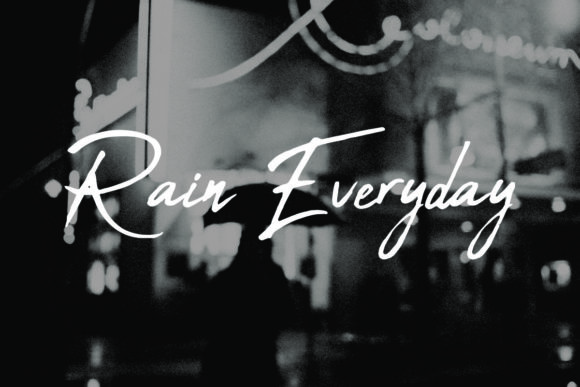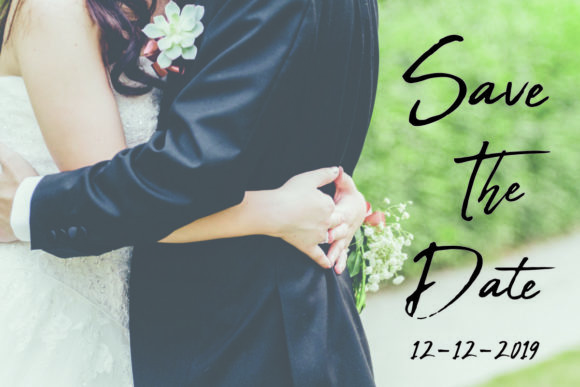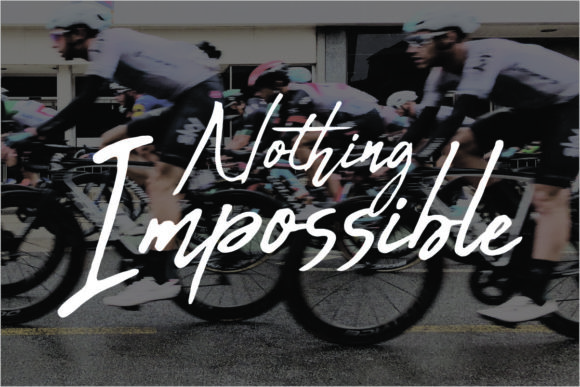
Introduction to Lostmytalk Font
Lostmytalk is a simple, yet elegant handwritten font with an authentic feel.
Use it to add a level of charm to any design project .
Key Features of Lostmytalk Font